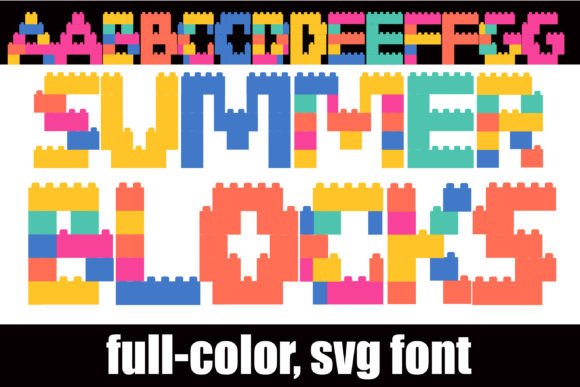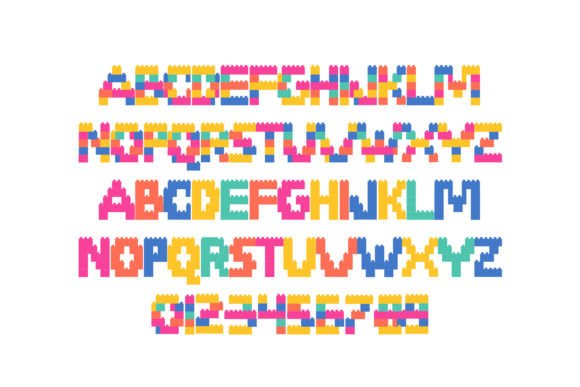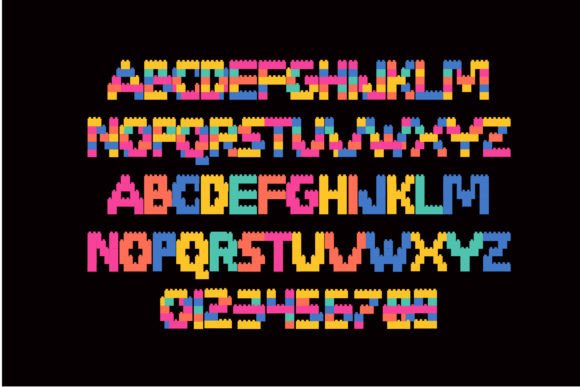
Summer Blocks Font
About the Summer Blocks Font
Elevate your designs with Summer Blocks Font, a font that combines sophistication with readability. This full-color font features a font that looks like it was built from toy building blocks in a summer color palette. There is an alt case with additional colors you can access through your system’s character map. This font works best for titles, displays, posters and more. Please note color fonts will show as black in non compatible programs. This font type is compatible with Silhouette Studio.